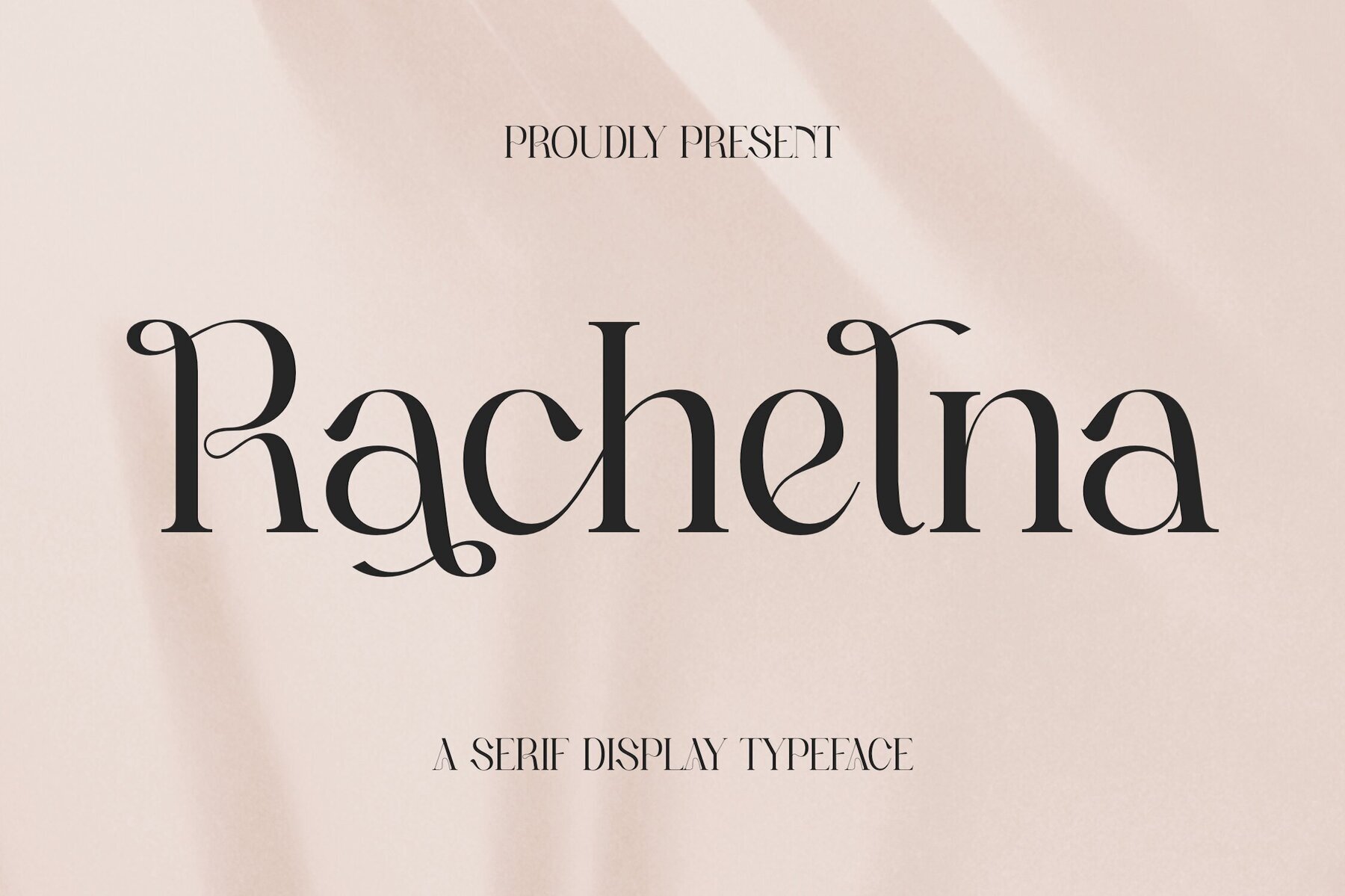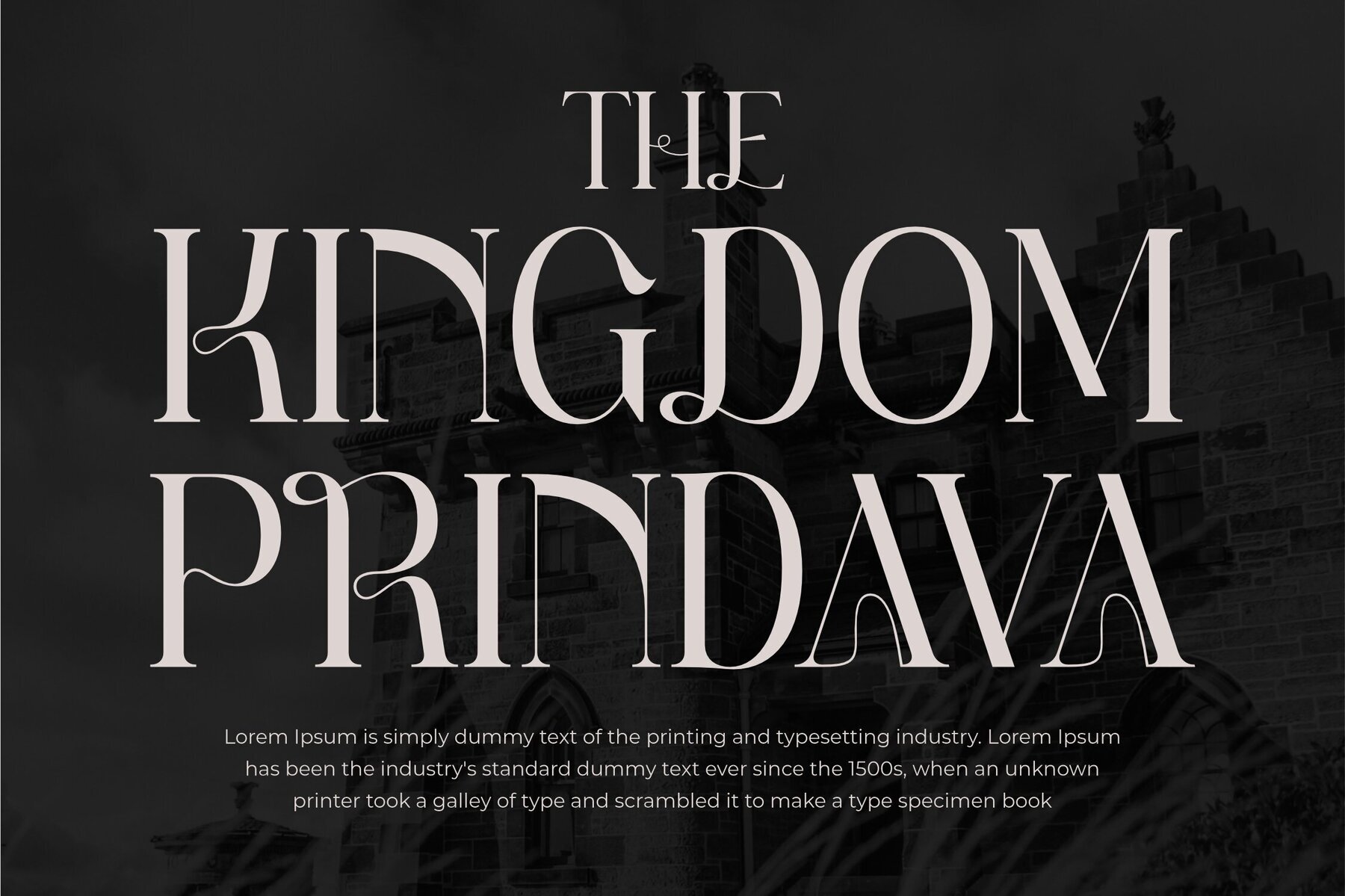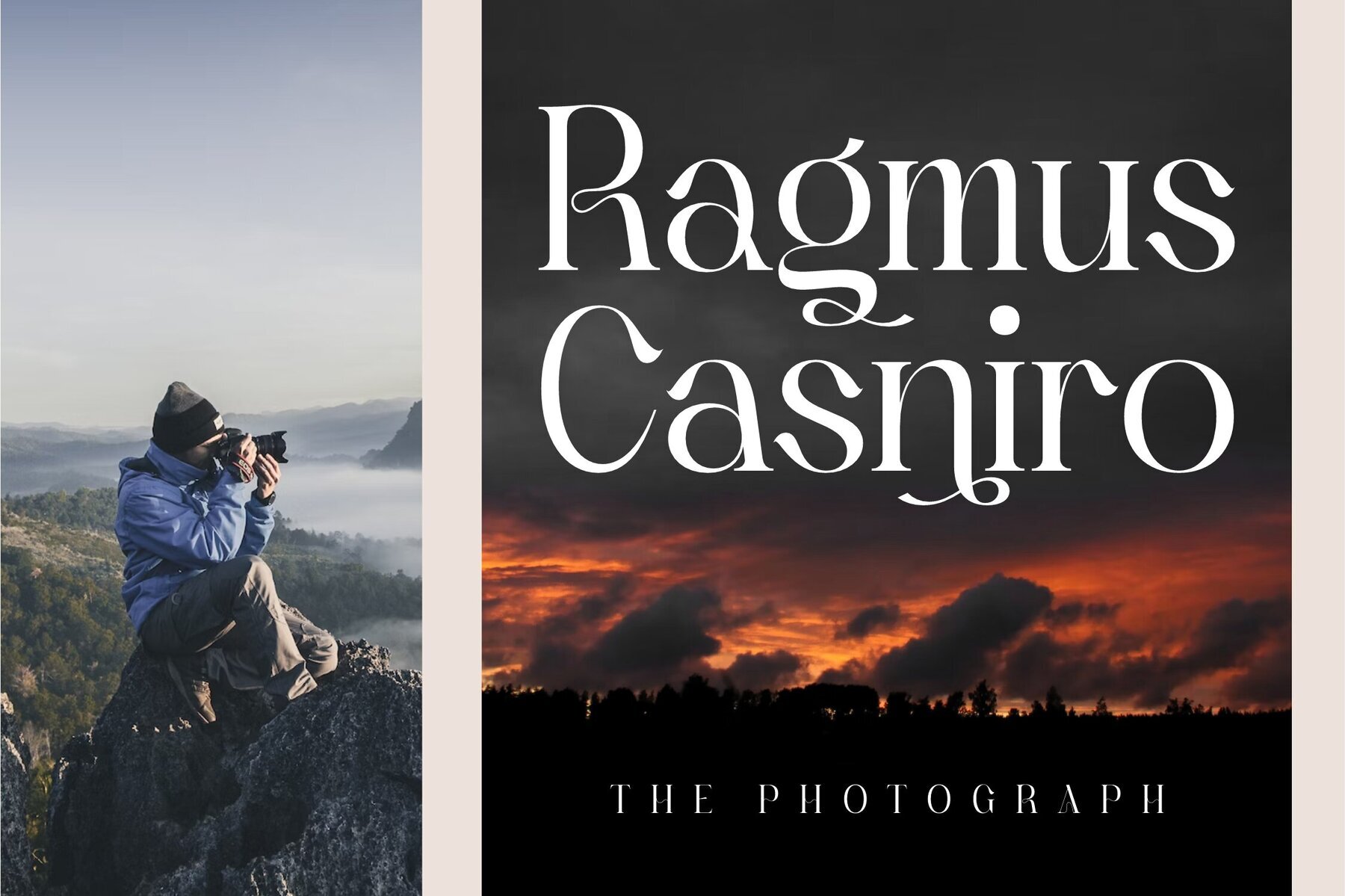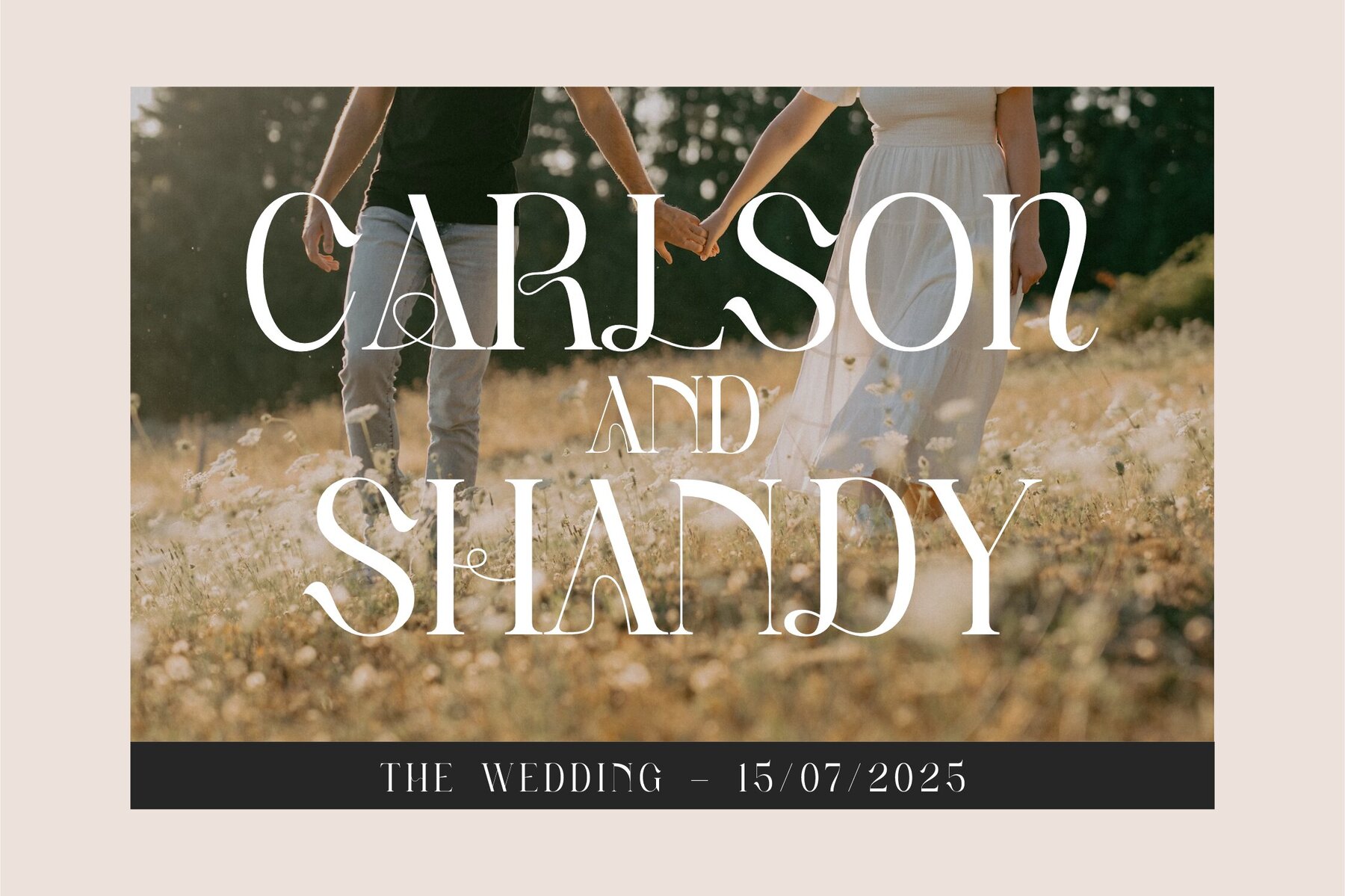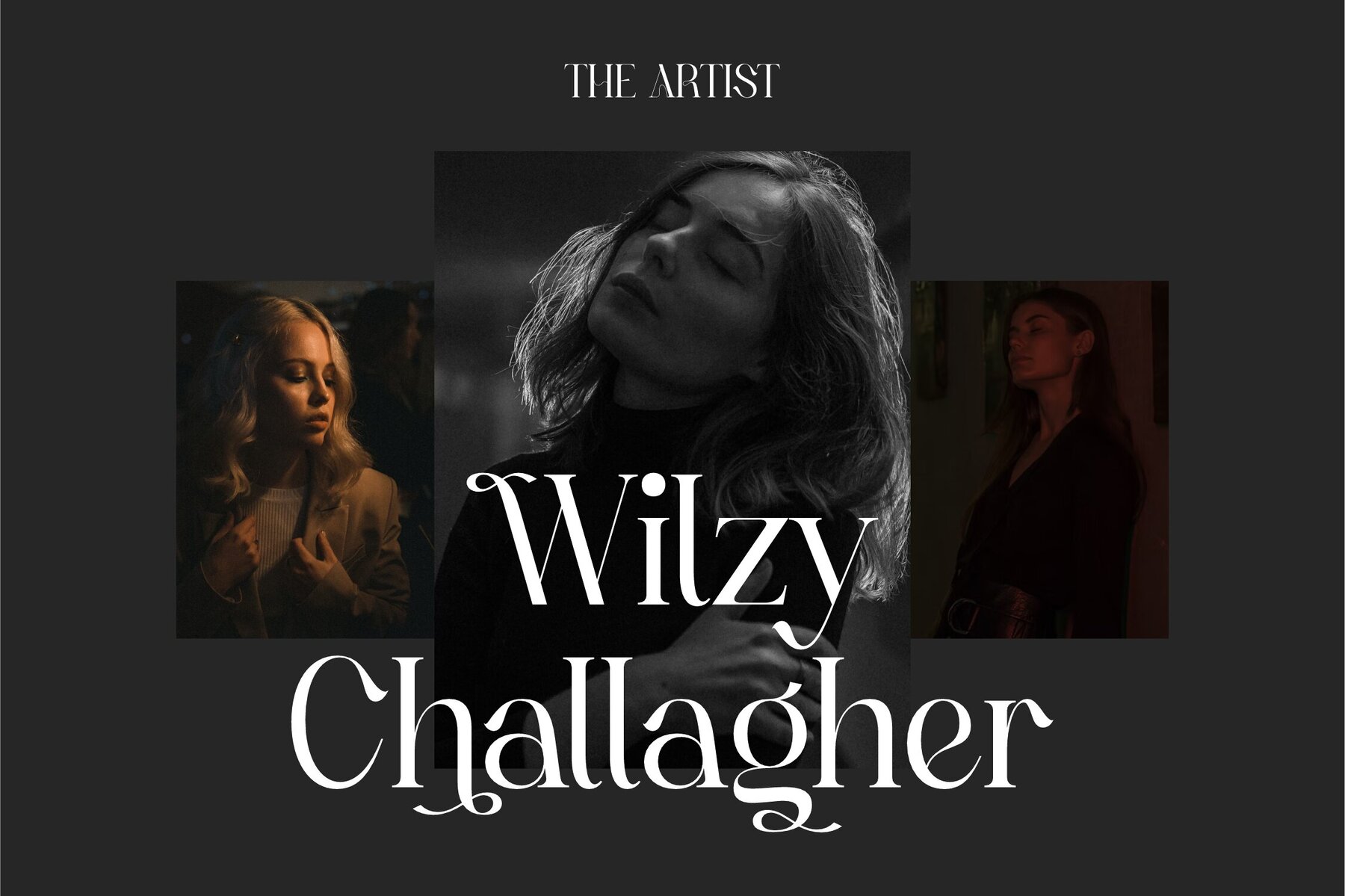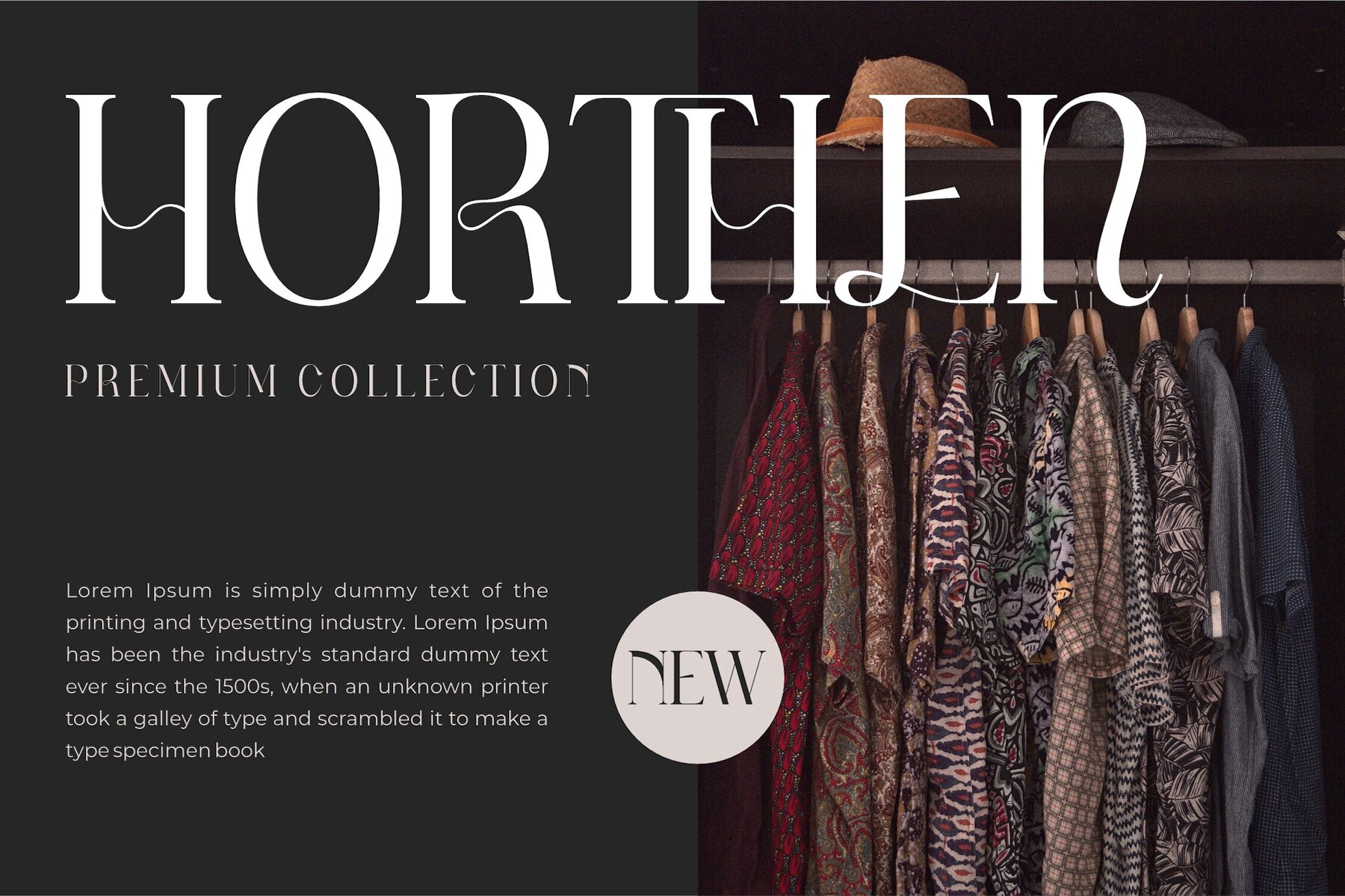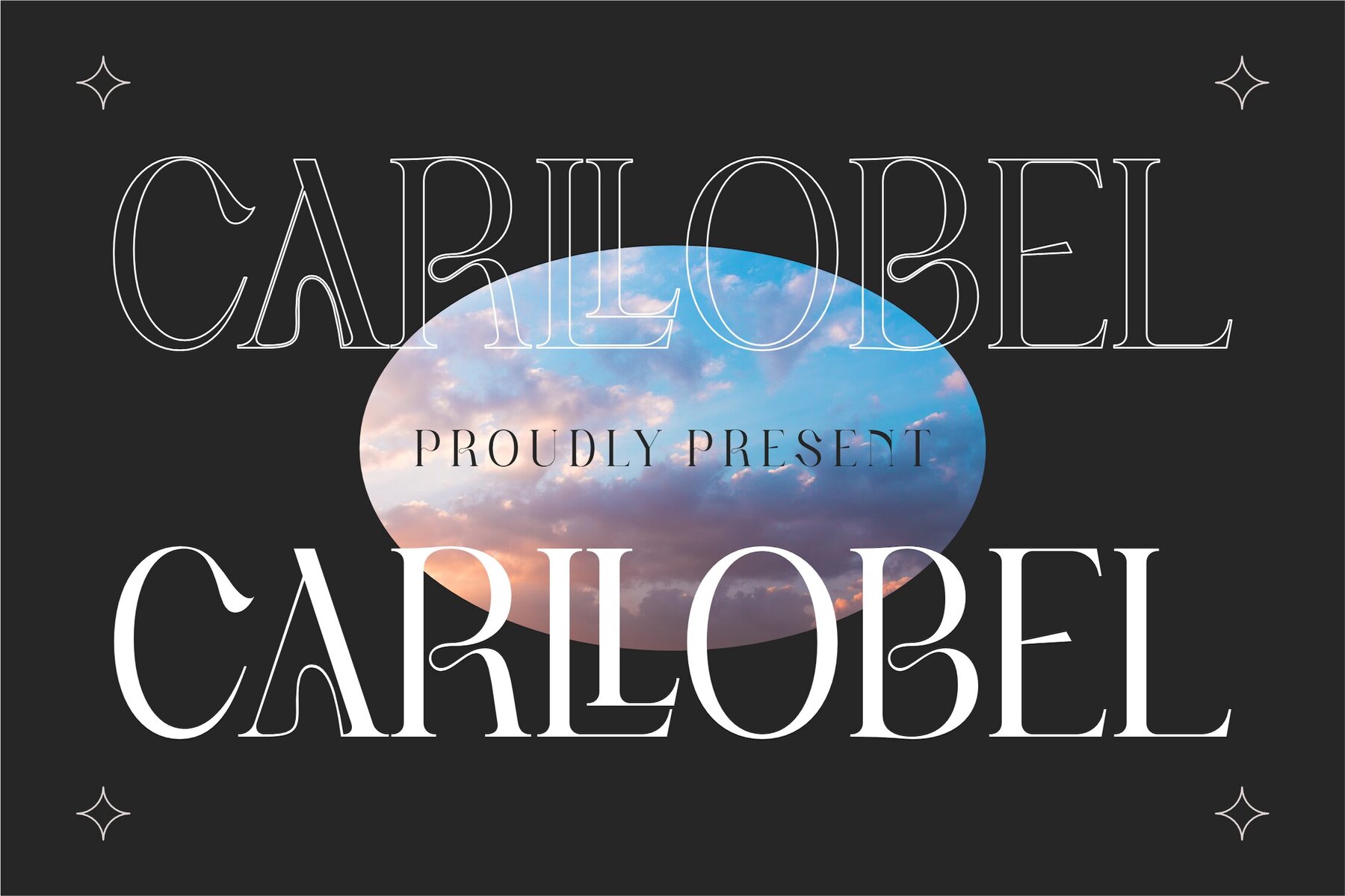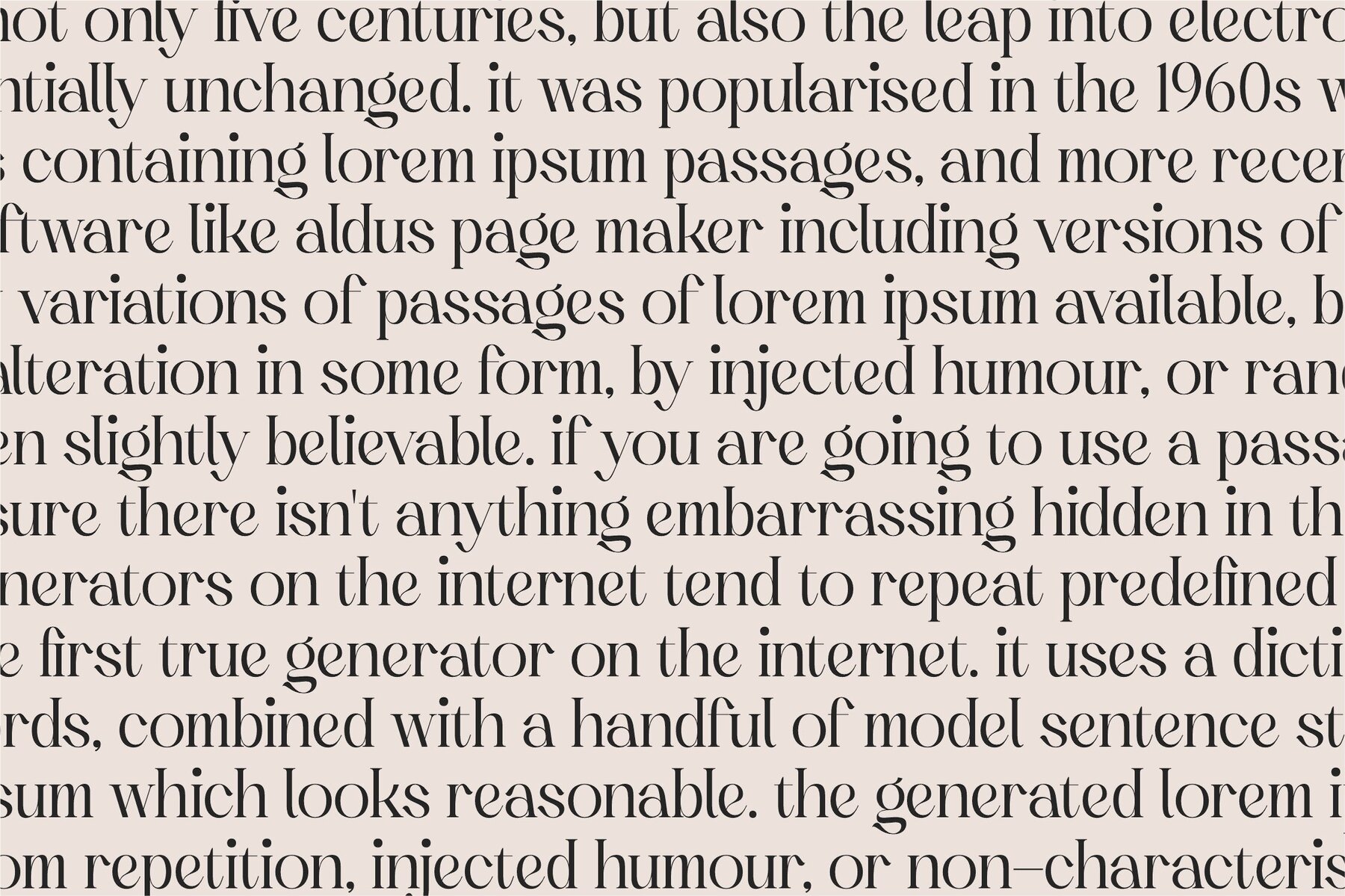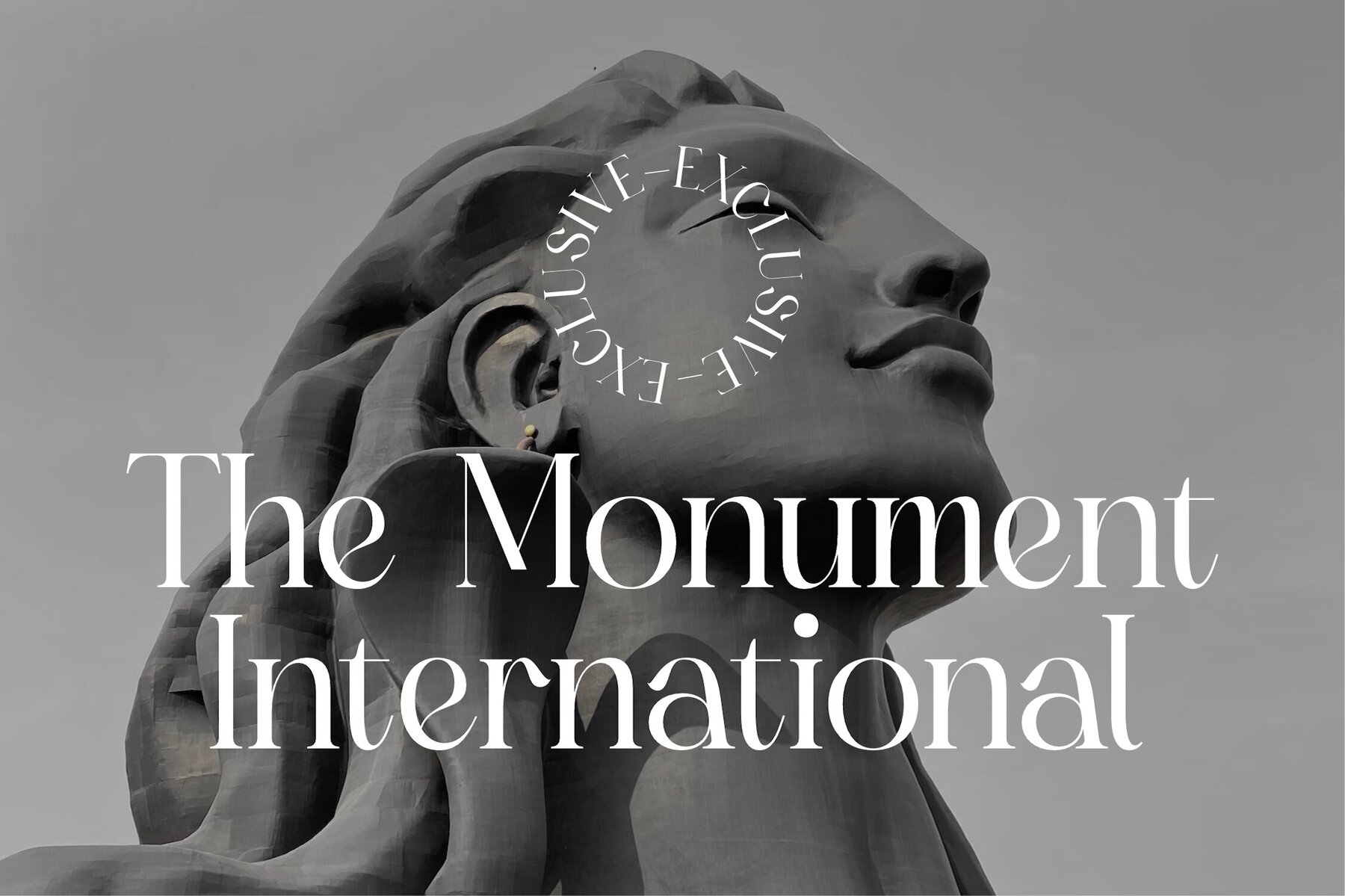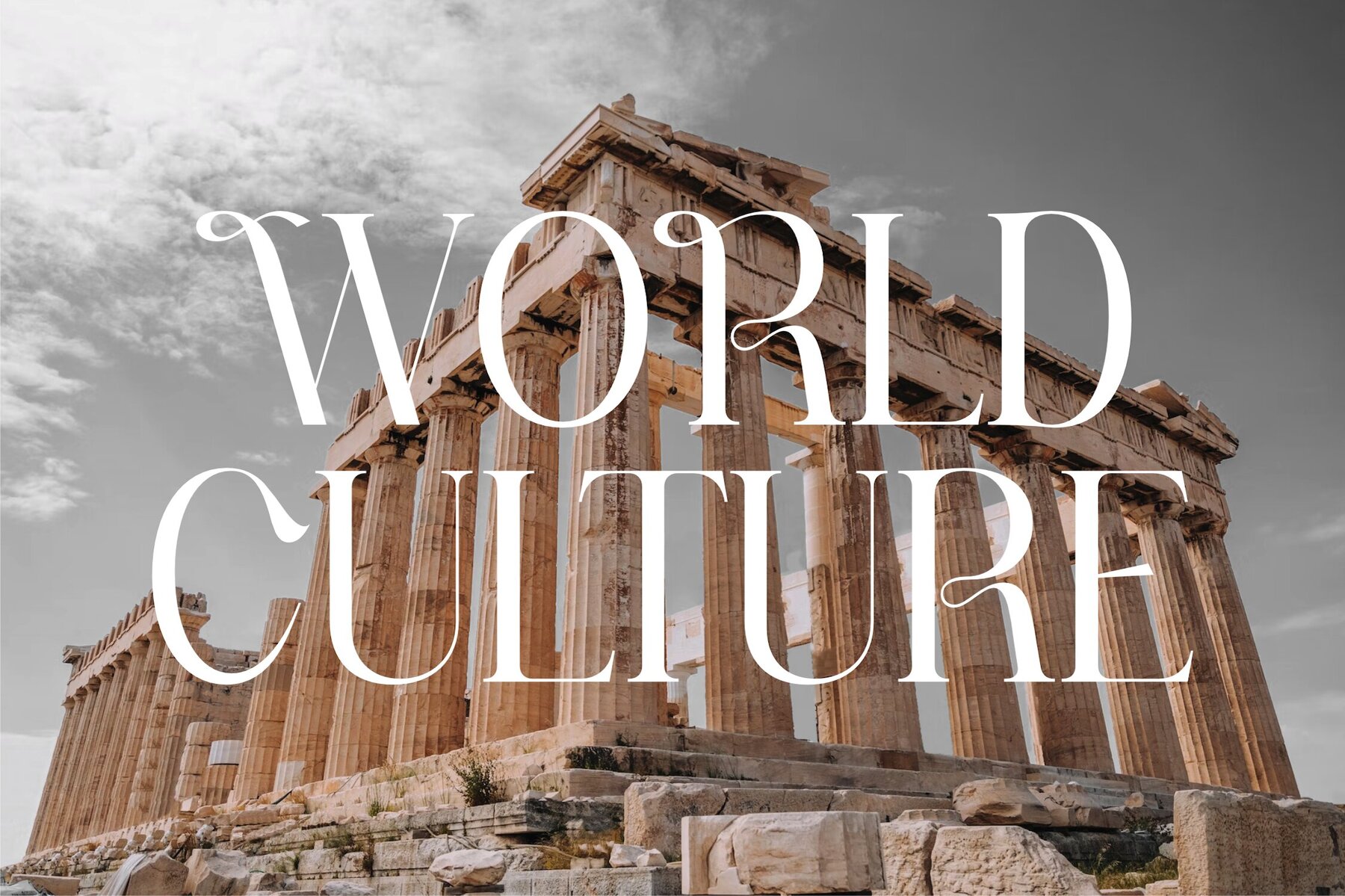
Rachelna Font
Rachelna Regular
Rachelna Italic
Introducing Rachelna, a sophisticated serif typeface that marries modern elegance with classic style. Whether you're crafting a luxury logo, designing a book or movie title, or branding a fashion line, Rachelna offers a distinctive look that's sure to impress. Its versatility extends to magazines, clothing lines, and artistic lettering, making it a timeless choice for a wide range of creative projects.Discover the Charm of Rachelna Typeface